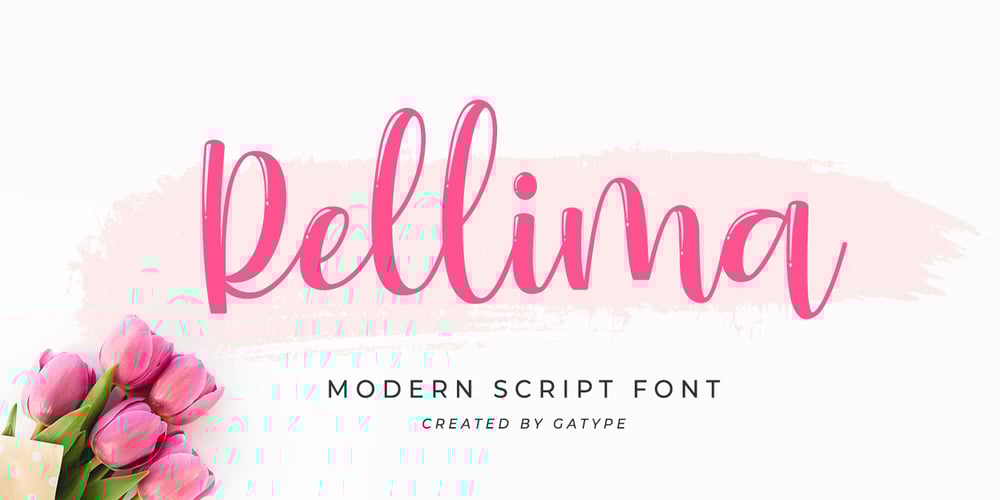
Rellima Font Family was designed by khaidir and published by Gatype. Rellima contains 1 styles and family package options. Rellima is a modern, dynamic and beautiful calligraphy manuscript with strokes. Can be used for many purposes. such as title, signature, logo, wedding invitation, letterhead, signage, label, newsletter, poster, badge, etc. Rellima features Open types, including initial and terminal letters, ligatures and International support for most Western languages included. To enable the OpenType Stylistic alternative, you need a program that supports OpenType features such as Adobe Illustrator CS, Adobe Indesign and CorelDraw X6-X7, Microsoft Word 2010 or later. Rellima PUA encoded with Unicode, which allows full access to all the extra characters without having to design special software. Mac users can use Font Book, and Windows users can use the Character Map to view and copy one additional character to paste into your text editor / favorite applications.Thank you very much for looking and please tell me if you have questions.